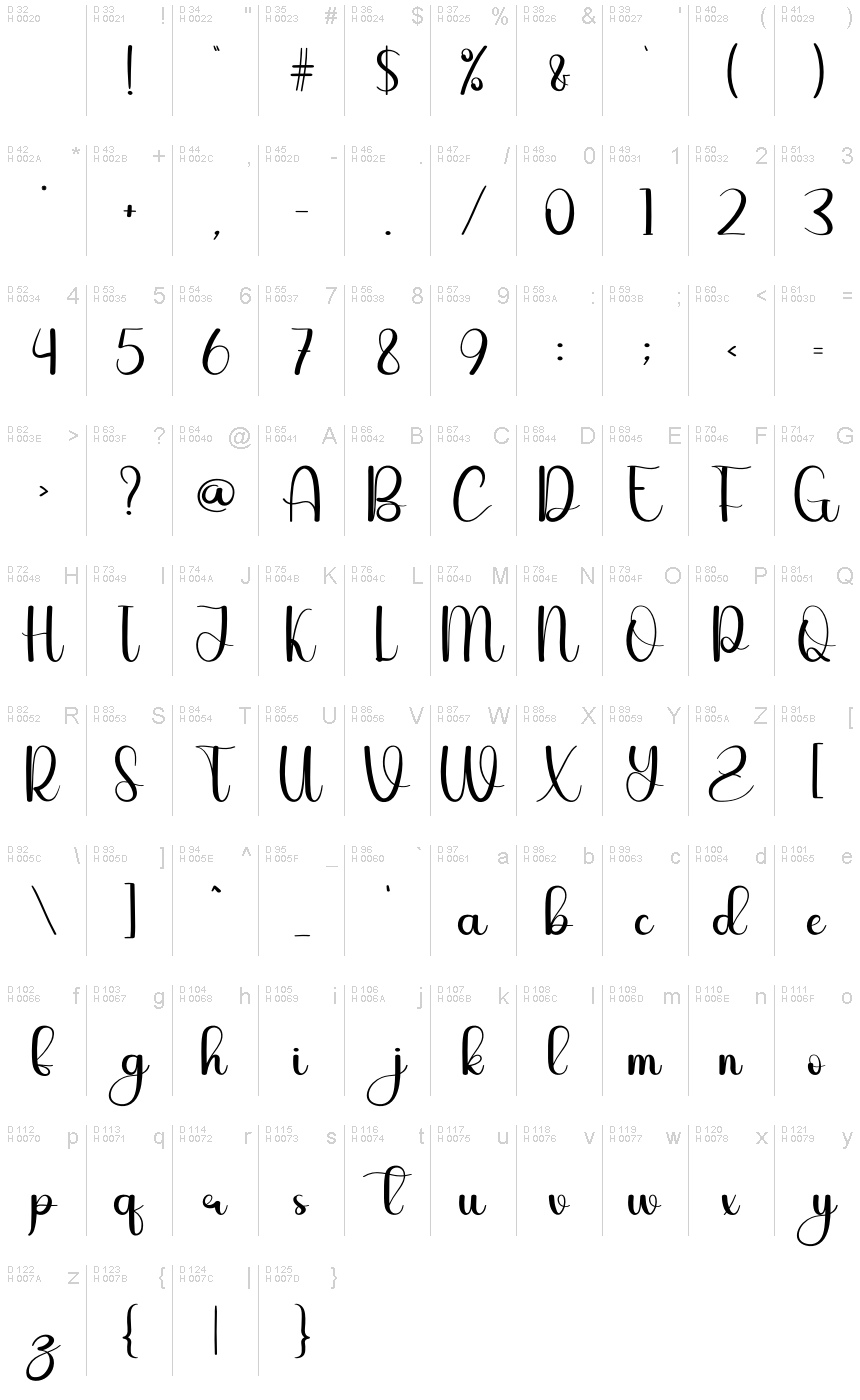
Rose Pink
Rose Pink is a captivating handwritten font designed by Andi Moz. This script-inspired typeface exudes a delicate, feminine charm with its organic, flowing strokes and subtle variations in line thickness. The elegant, cursive letterforms create a sense of effortless grace, making "Rose Pink" an ideal choice for a wide range of design applications, from wedding invitations and greetings cards to social media graphics and branding materials.
Its expressive, hand-crafted aesthetic lends a personal, heartfelt touch to any project, seamlessly blending modern sophistication with a timeless, romantic aesthetic.